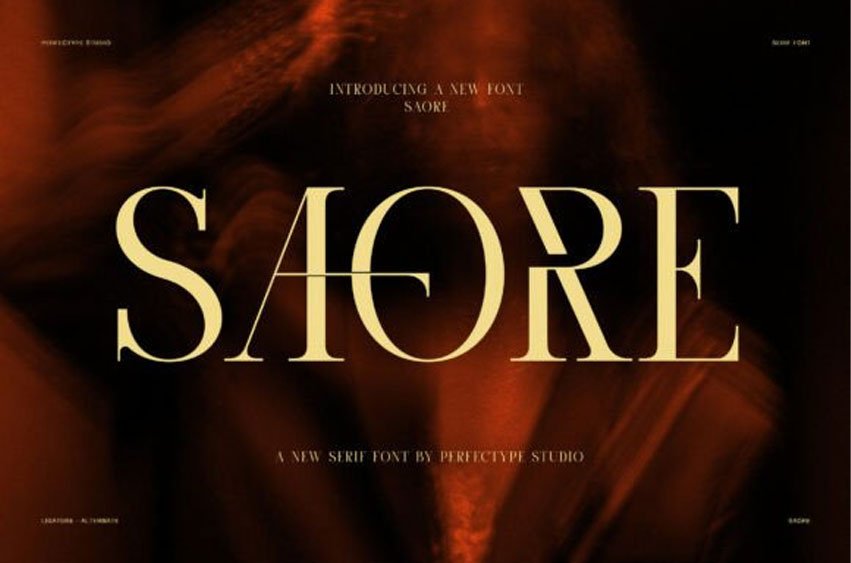
Saore Font
Saore Font is a luxury ligature serif font designed for brands that value elegance, precision, and timeless style.
Inspired by high-end fashion, premium editorials, and modern luxury identities, this typeface combines refined serif proportions with distinctive ligatures that create unforgettable typography. As a result, every headline, logo, or brand name appears sophisticated while maintaining exceptional readability.